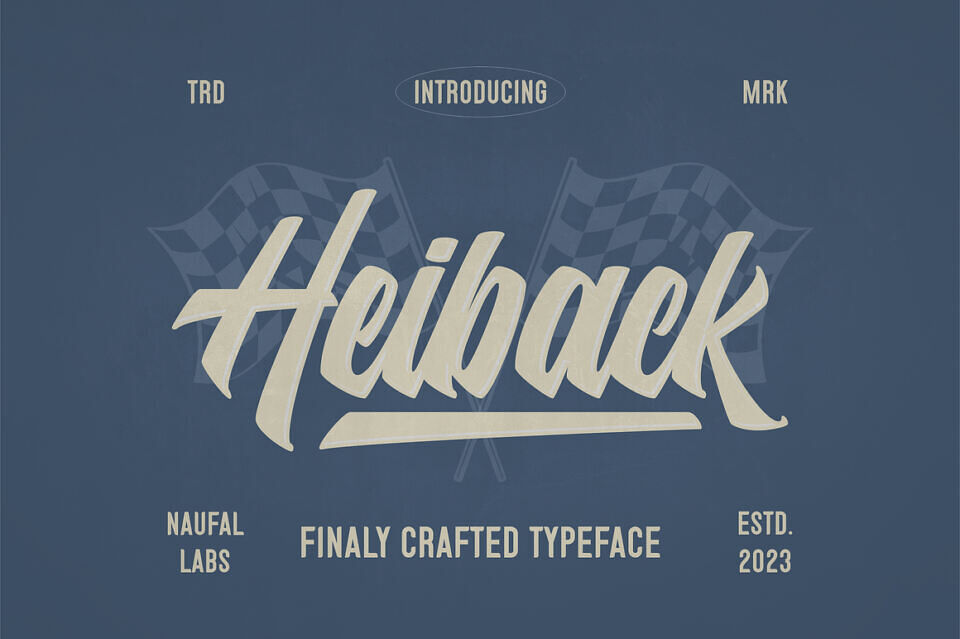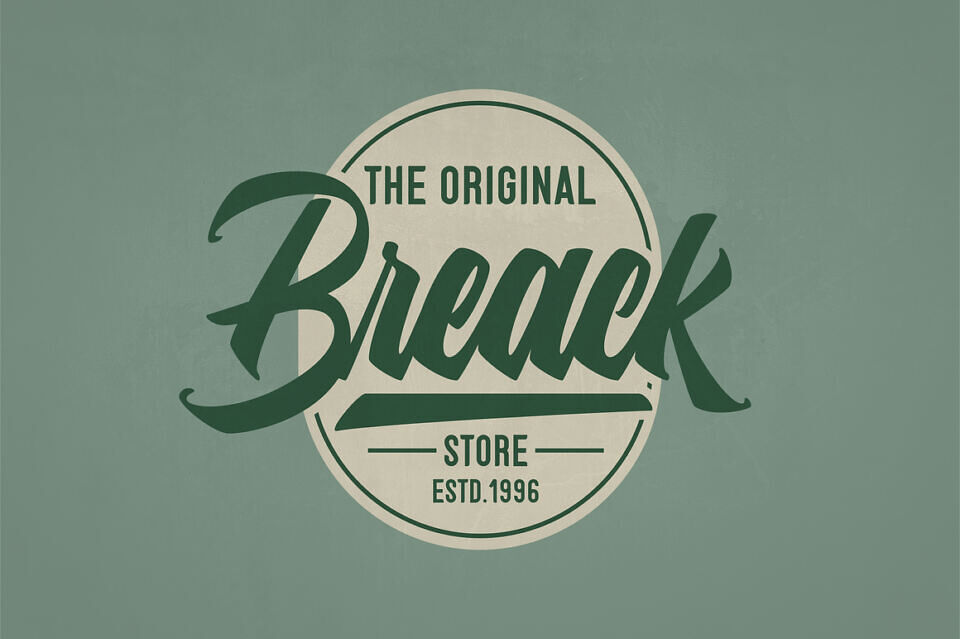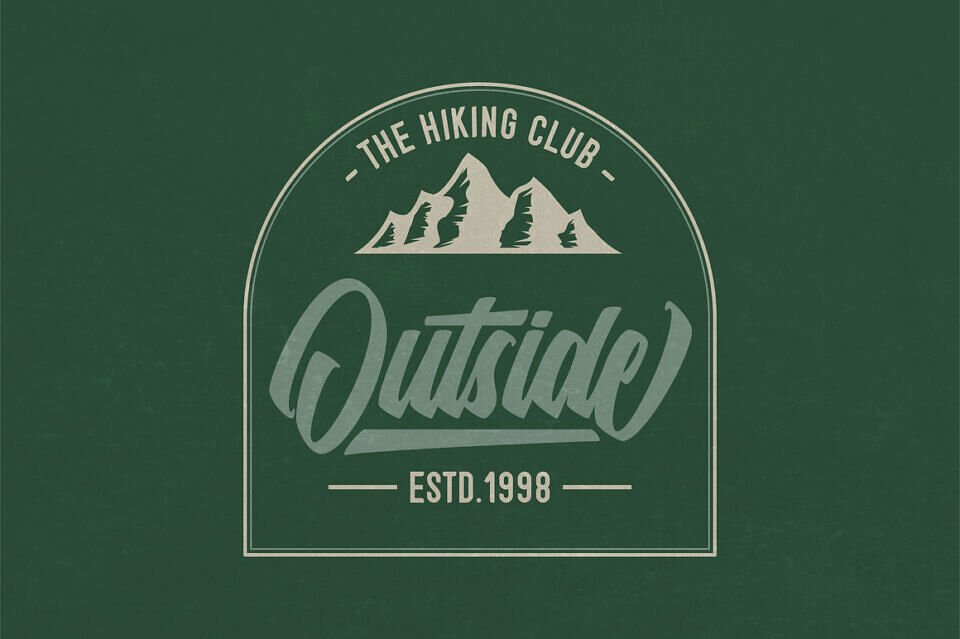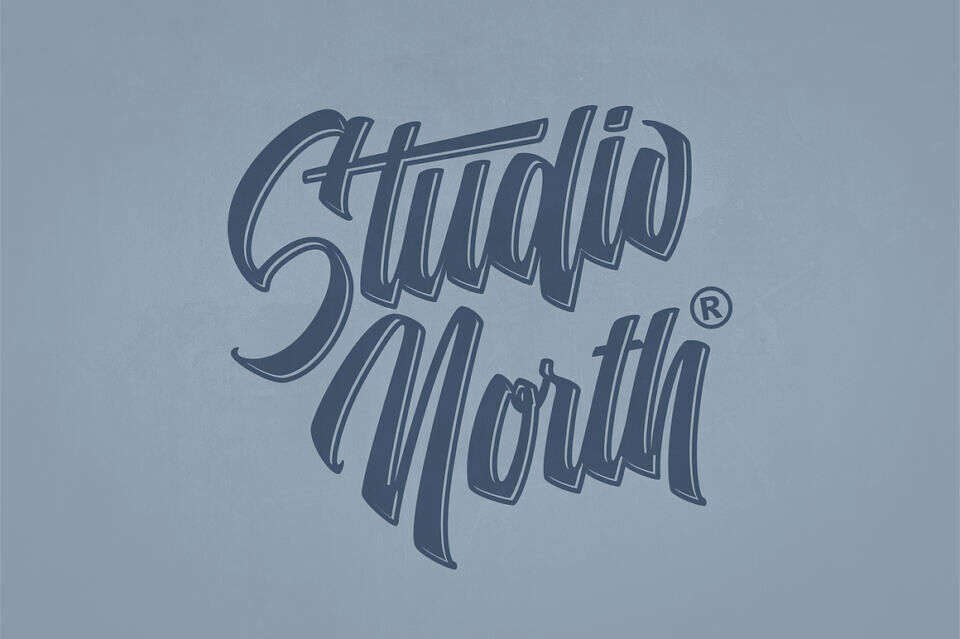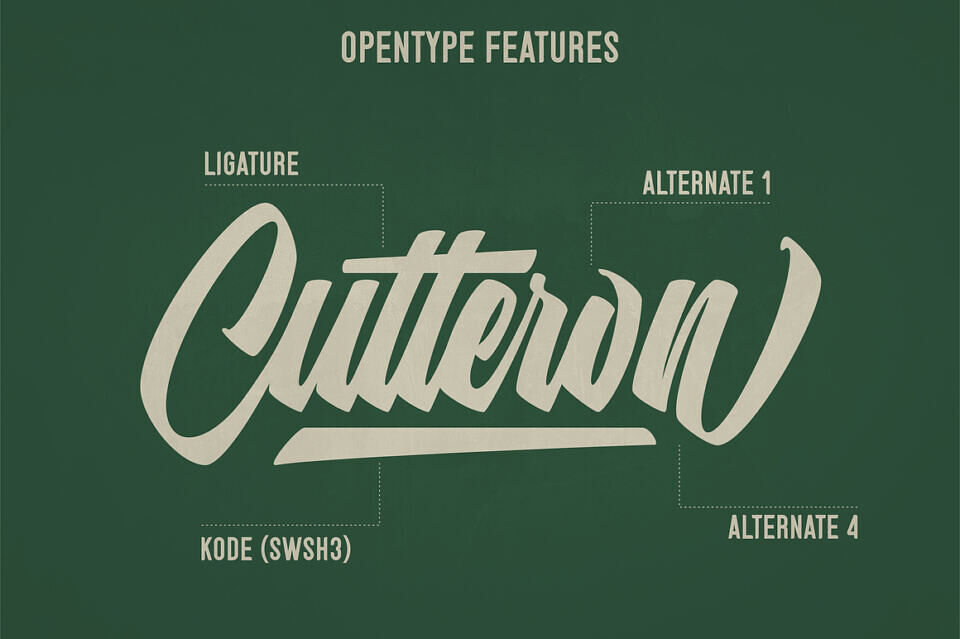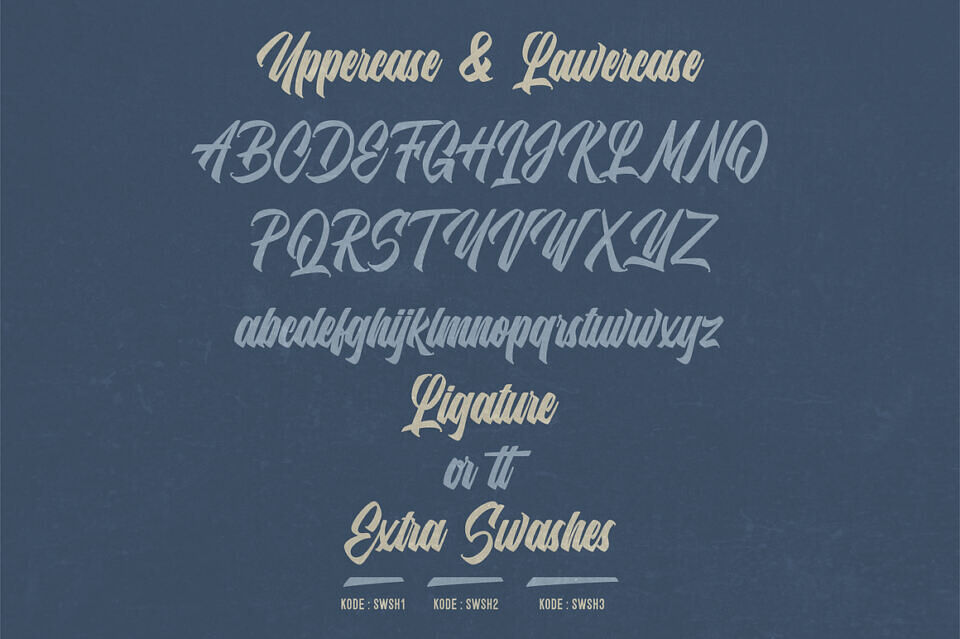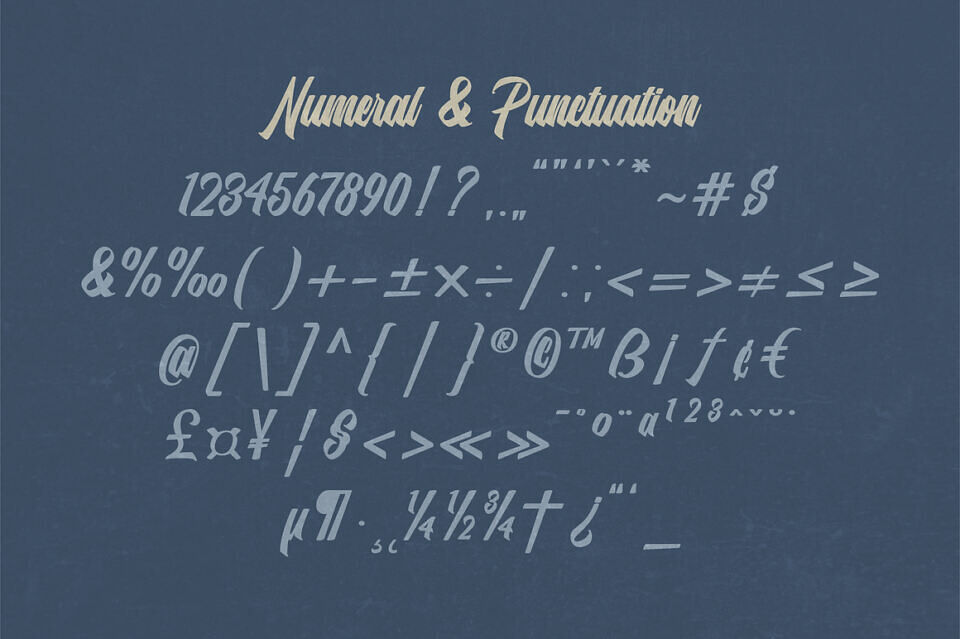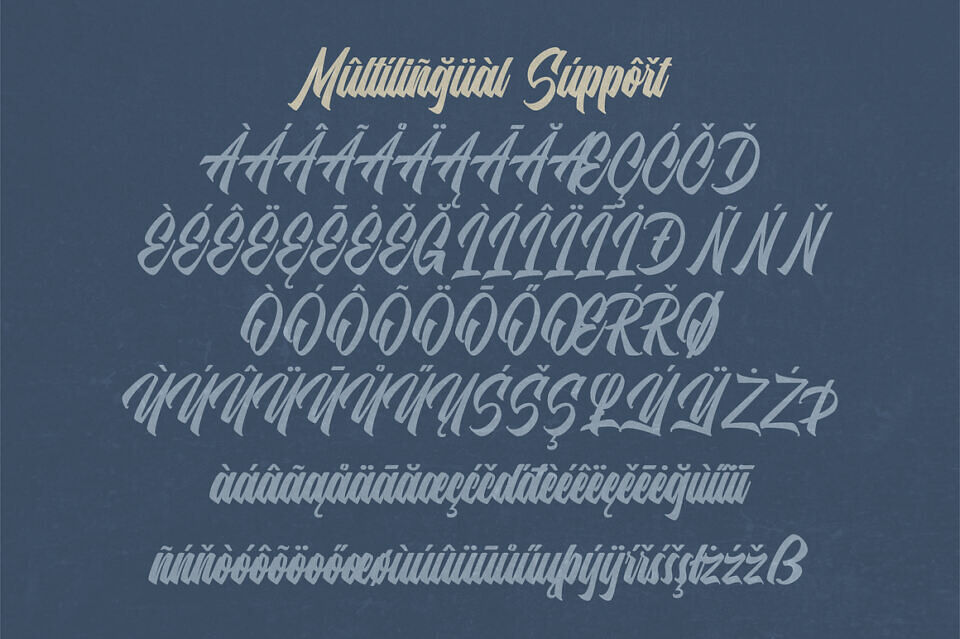
Heiback Font
Heiback has the impression of modern, trendy and elegant. Tight spacing, narrow letters and sharp edges gives Heiback it distinctive looks and charachter.
It is suitable for designs that needs a script with a contemporary feel. Heiback is awesome for branding and logotype, Poster, Apparel Design, Label and etc.